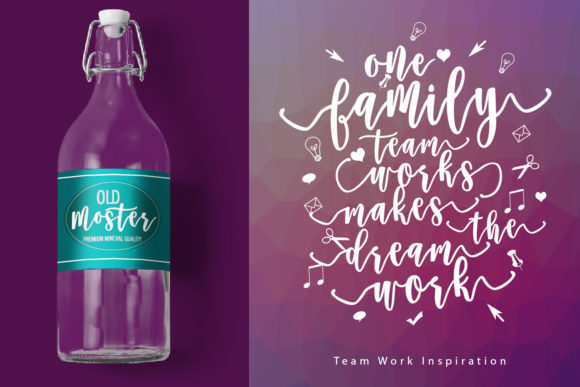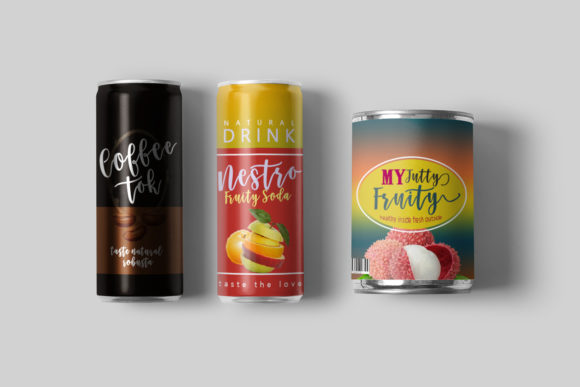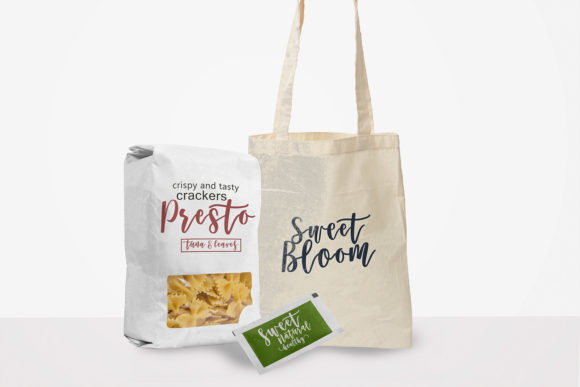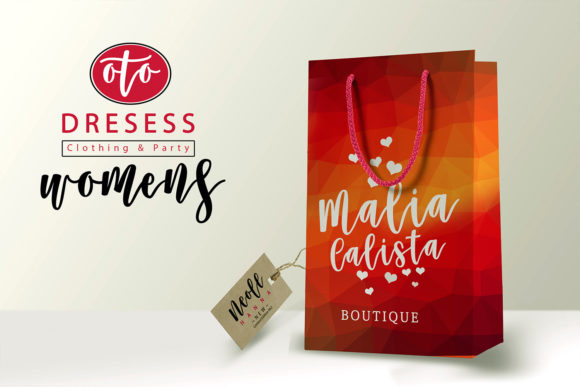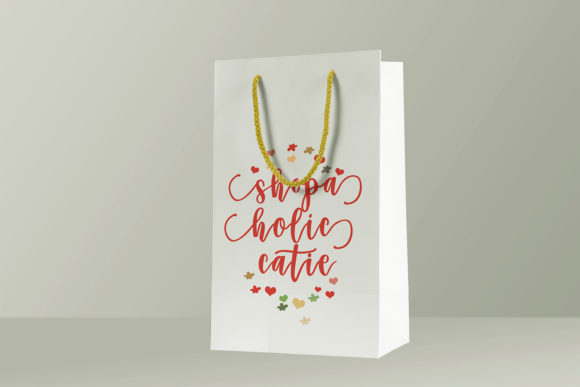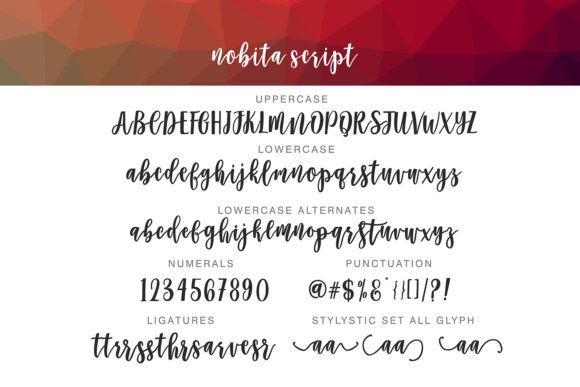
Introduction to Nobita Script Font
Nobita is a neat and professional script font designed for projects that need high-quality typography.
Trendy, natural, and gentle, you can take advantage of this font and highlight your most creative projects and ideas .